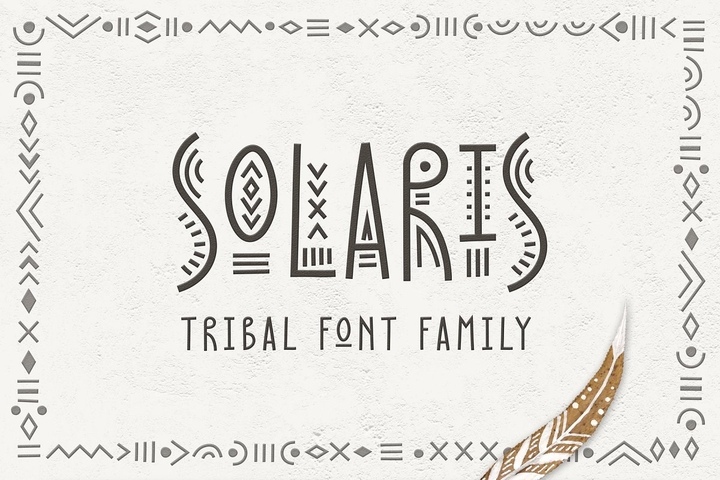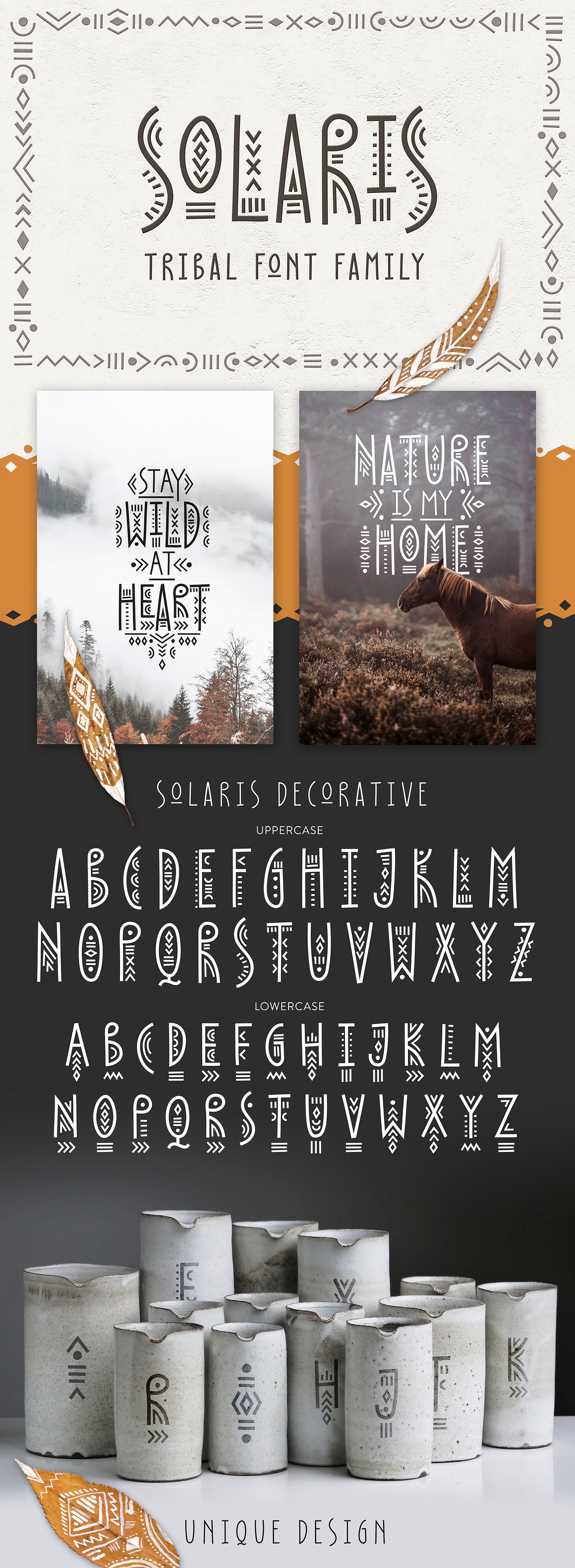
Solaris - Tribal Font Family
Solaris - Tribal Font Family is perfect for indigenous cultural branding, ceremonial design projects, spiritual wellness graphics, ethnic festival posters, tribal art galleries, sacred geometry layouts, ancestral craft packaging, and cultural heritage documentation.
This exciting Solaris - Tribal Font Family radiates ancient solar energy and indigenous wisdom through its distinctive tribal patterns and ceremonial letterforms that honor traditional sun worship and ancestral design traditions. The font's spiritual character and cosmic connection make it an exceptional choice for projects requiring sacred authenticity, cultural reverence, and tribal solar symbolism that resonates with audiences appreciating indigenous spirituality and ancestral wisdom.
The Solaris - Tribal Font Family encompasses multiple sacred variations including Solar Regular, Ceremonial Bold, Ritual Light, Sacred Ornamental, Tribal Script, and Cosmic Display versions, providing designers with comprehensive options for creating spiritually respectful brand communications and ceremonially inspired typographic compositions with authentic solar tribal heritage.
Embrace solar tribal wisdom with Solaris - Tribal Font Family Free Download - a spiritually crafted font collection that celebrates the sacred connection between sun worship and indigenous artistic traditions. This versatile font family combines ancient solar symbolism with contemporary functionality, making it ideal for brands and projects that need to communicate spiritual authenticity, cosmic connection, and respectful tribal appreciation.
The cosmic character of Solaris - Tribal Font Family makes it particularly valuable for spiritual wellness centers, indigenous art organizations, ceremonial product brands, and cultural preservation societies that need to convey sacred respect, ancestral wisdom, and solar spiritual connections. Its tribal styling appeals to audiences who appreciate indigenous spirituality, sacred geometry, and cosmic consciousness experiences.
Spiritual design professionals choose Solaris - Tribal Font Family for its authentic ceremonial atmosphere and exceptional sacred resonance across various indigenous applications. The font family maintains its spiritual character from small ritual materials to large ceremonial installations, ensuring consistent tribal respect and solar authenticity throughout all sacred communications.
The distinctive personality of Solaris - Tribal Font Family creates immediate spiritual connections through powerful associations with solar worship, tribal ceremonies, and ancestral cosmic wisdom. This makes it invaluable for brands seeking to leverage indigenous authenticity and solar spirituality for marketing campaigns and sacredly focused brand positioning strategies.
Spiritually conscious brands utilize Solaris - Tribal Font Family to establish authentic identities that communicate sacred respect, solar wisdom, and tribal heritage in contemporary spiritual markets. The typeface family's cosmic appeal helps organizations differentiate themselves while attracting conscious consumers who value indigenous spirituality, sacred traditions, and authentic tribal solar experiences in their spiritual journey.